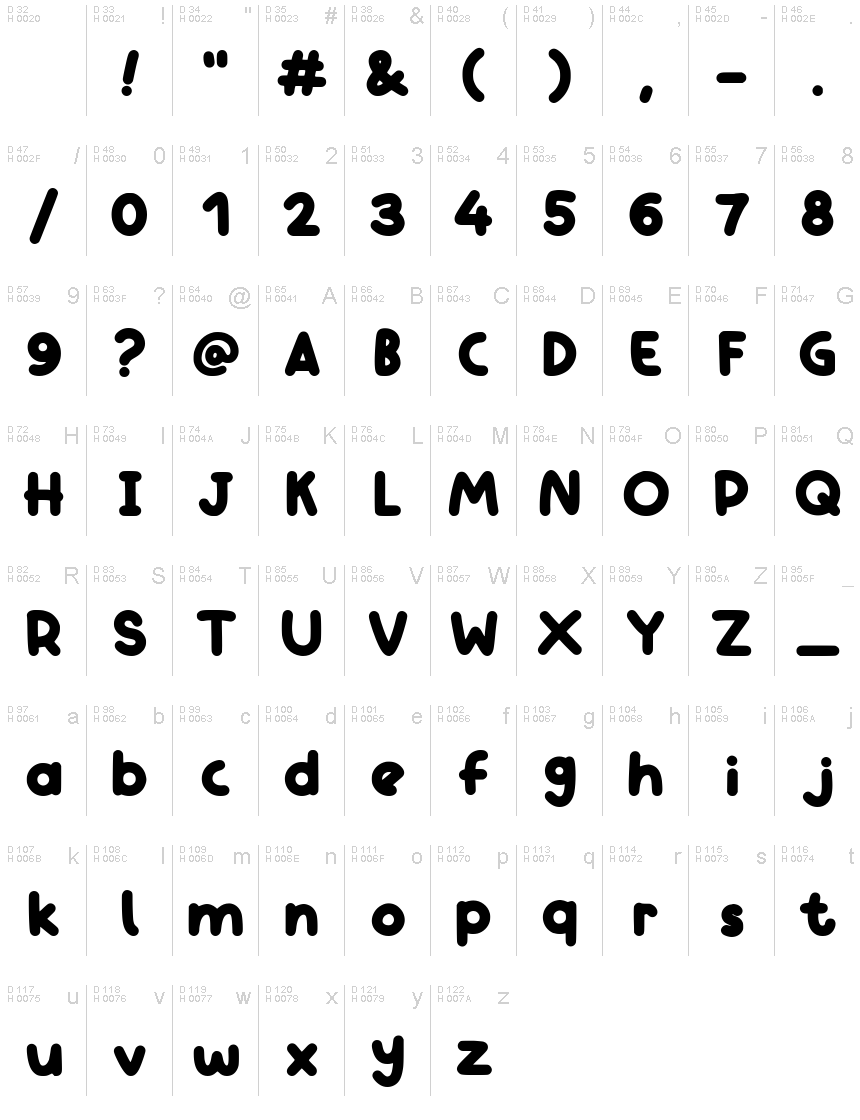
Bunda Gichi Regular
Bunda Gichi font is designed by Nia Gichi in a free font addition to our library. The modern brush handwritten sans-serif typeface is highly legible with uniform medium-thick strokes. It’s hold and rounded shapes add a playful friendly mood to any visual projects that use it.